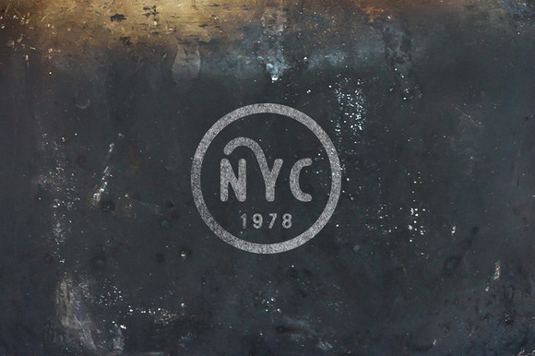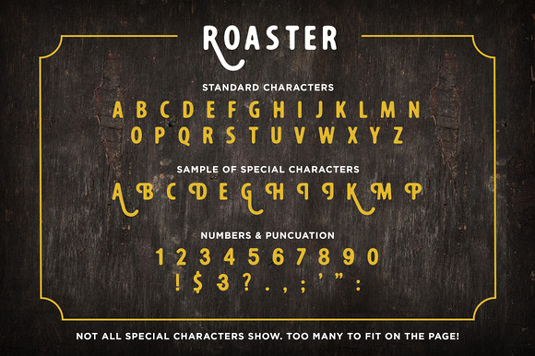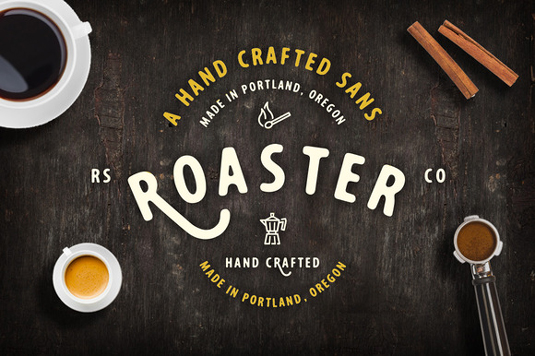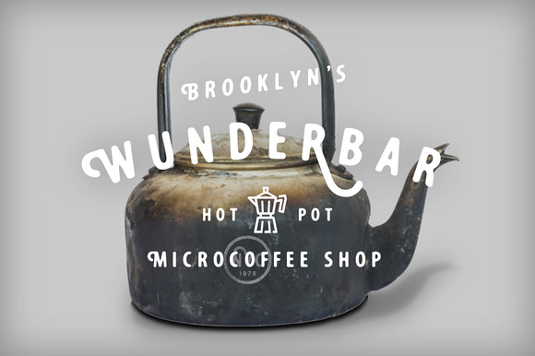
Font of the day: Roaster
Roaster by Dustin Lee
Designer Dustin Lee is the man behind today's typeface of choice, Roaster. "Like sweet, fresh roasted espresso poured into a warmed ceramic cup in the early morning. Roaster has a rounded, handcrafted flavour with lots of alternatives," Lee comments. "A perfect font pair for branding and headings."